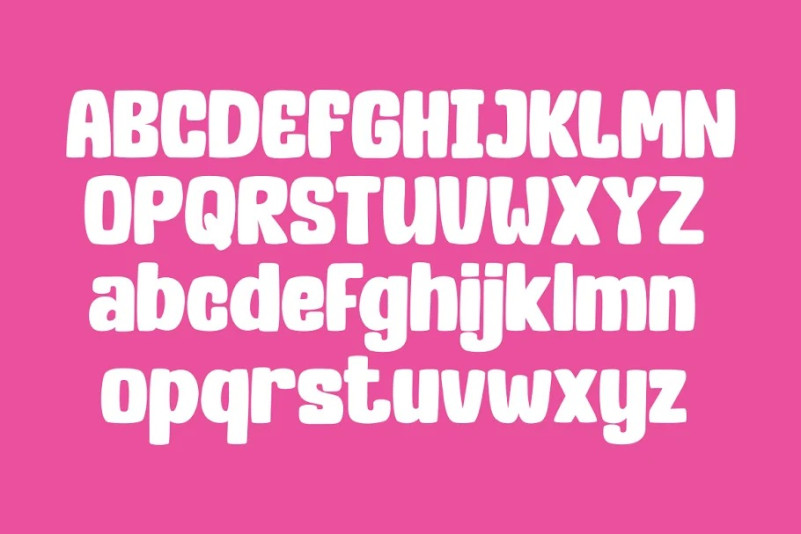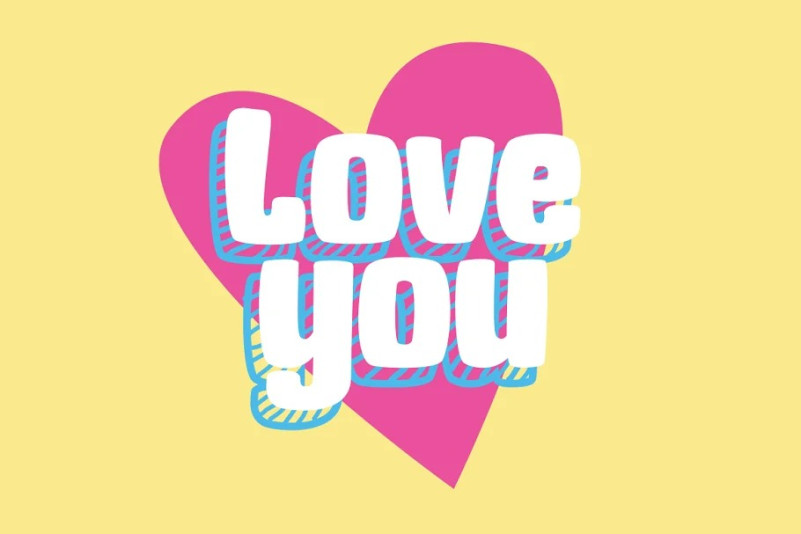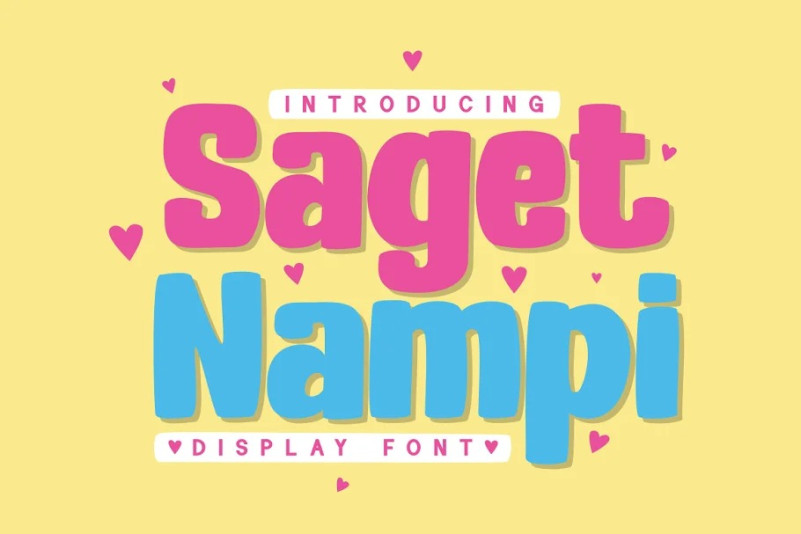
Saget Nampi Font
Looking for a unique, stylish, and fun font for your next project?
Saget Nampi Cute Font is the display font. this font is perfect for any design project that requires display fonts.